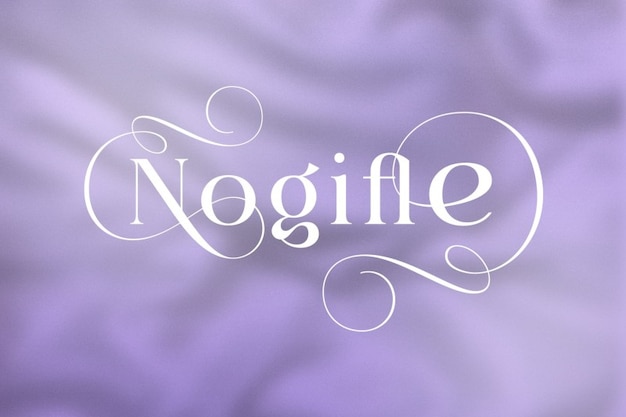
Noglife Font
It is a classic among fonts. Its sophisticated lettering is the epitome of fancy. Whether it's a formal invitation, a vintage poster, or a stylish logo, "Noglife" adds an air of elegance to your projects. This font knows how to make a statement, turning ordinary words into a classy work of art. When you want to impress, "Noglife" is your go-to choice.